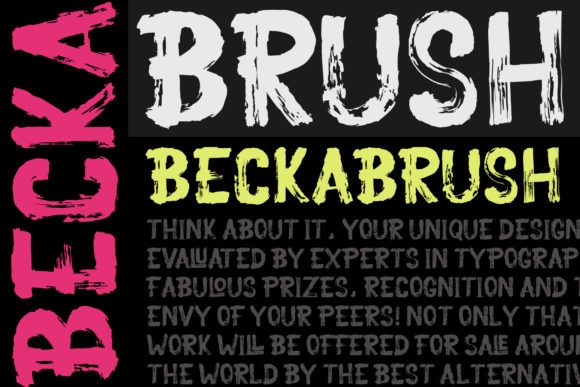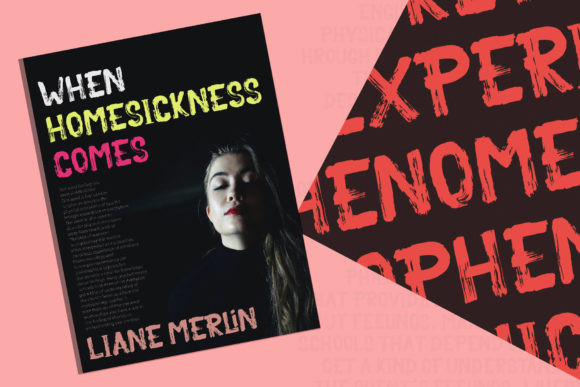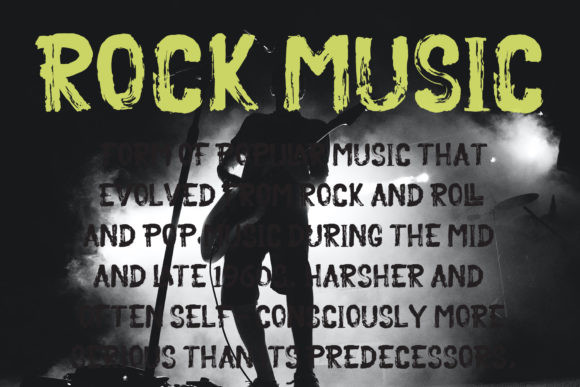
Becka Brush Font
Becka Brush is a bold and chunky lettered display font, created with the help of a brush pen. Add it to your most creative ideas and notice how it makes them come alive!